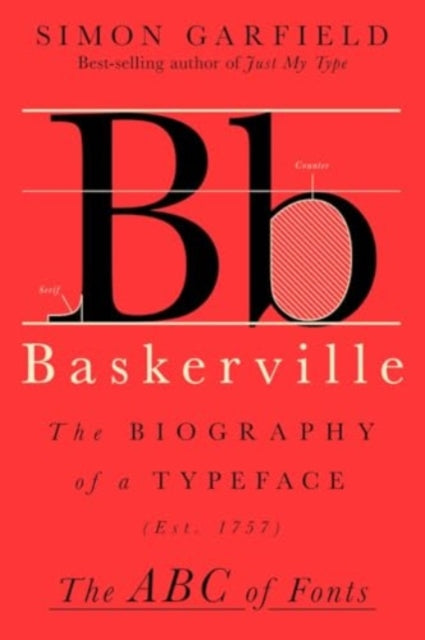
Simon Garfield
The Baskerville: The Biography of a Typeface
A compact and charming history of the classic Enlightenment font by the New York Times best-selling author of Just My Type.